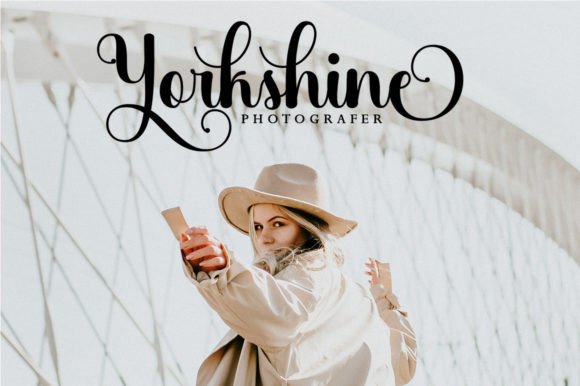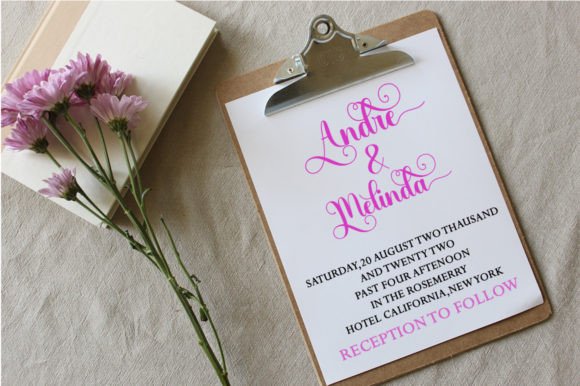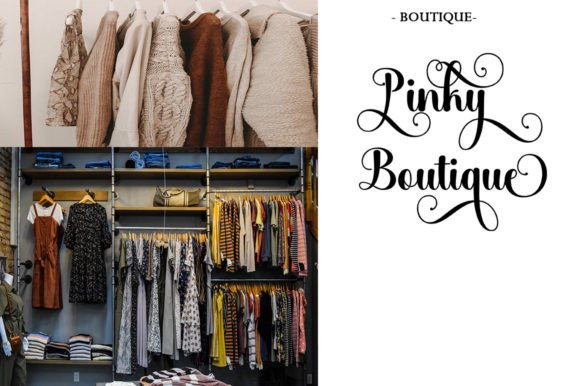
Introduction to Gadyum Font
Gadyum is a handwritten font created to be used in all design needs.
This font is great for logos, product packaging, wedding invitations, branding, headlines, signage, labels, signatures, book covers, posters, quotes, and others This font is PUA encoded, which means you can access all of the glyphs and swashes with ease.
Key Features of Gadyum Font